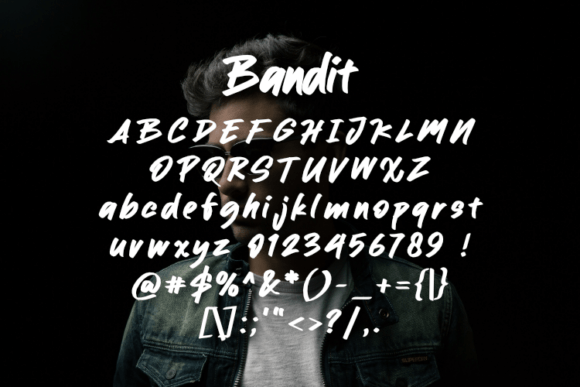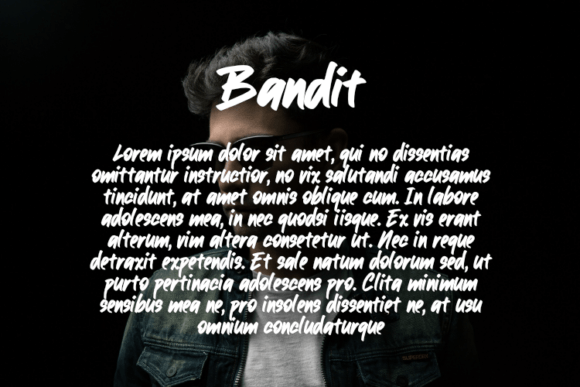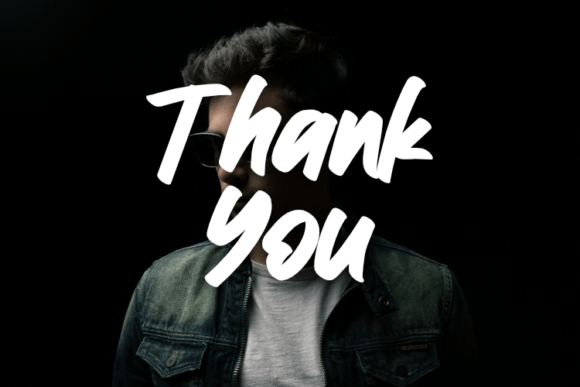
Unleash Your Creativity with Bandit Font: The Ultimate Design Companion
Are you a designer, crafter, or DIY enthusiast looking for a font that can elevate your creative projects? Look no further than Bandit Font, a versatile and stylish typeface that’s perfect for adding a touch of personality to your designs. In this article, we’ll explore the features and benefits of Bandit Font, and show you how it can help you take your designs to the next level.
What is Bandit Font?
Bandit Font is a unique and creative typeface that’s designed to add a breath of fresh air to your designs. Whether you’re working on apparel, t-shirts, or a range of other projects, Bandit Font is the perfect choice. Its versatility and flexibility make it an ideal font for designers, crafters, and DIY enthusiasts who want to create stunning and eye-catching designs.
Key Features of Bandit Font
So, what makes Bandit Font so special? Here are some of its key features:
- High-quality design: Bandit Font features a unique and stylish design that’s perfect for adding a touch of personality to your projects.
Benefits of Using Bandit Font
So, why should you choose Bandit Font for your design projects? Here are just a few benefits:
- Flexibility: With Bandit Font, you can create a wide range of designs, from simple and elegant to bold and eye-catching.
- Professional results: With Bandit Font, you can achieve professional-looking results that will elevate your designs and set you apart from the competition.
Design Ideas with Bandit Font
Bandit Font is perfect for a wide range of design projects, including:
- T-shirts and apparel: Add a touch of personality to your t-shirts and apparel with Bandit Font.
- Signs and posters: Use Bandit Font to create eye-catching signs and posters that grab attention.
- Digital graphics: Add a touch of style to your digital graphics, including social media graphics and blog posts.
- Craft projects: Use Bandit Font to add a personal touch to your craft projects, including scrapbooking and card making.